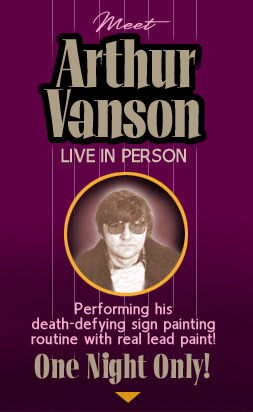
LHF Opening Night Includes 3 different fonts. Unusual with lots
of personality. Especially well-suited for showcards and banners.
But with it's distinct hand-lettered appearance, Opening Night can
be used for a variety of projects. Each font includes full punctuation,
numerals and accent characters.